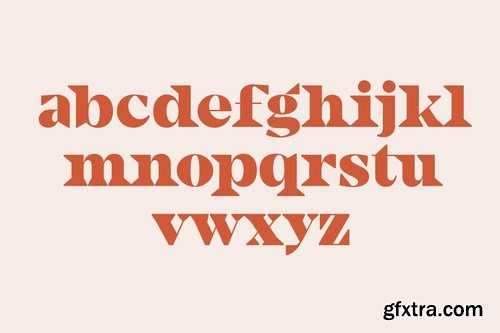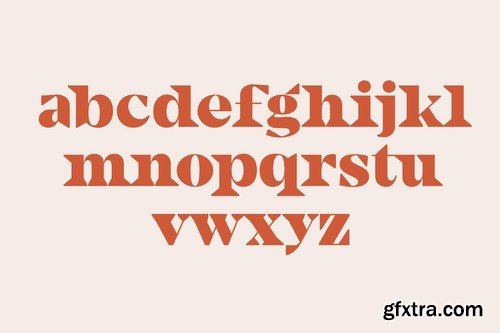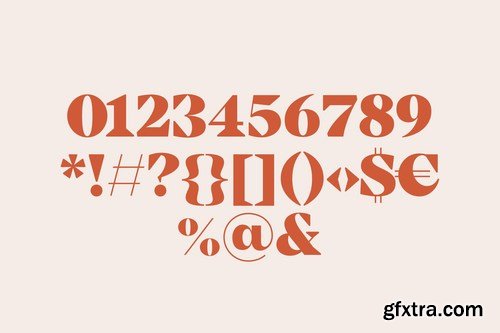
Introducing our new typeface trio, Metridat - a contemporary, Art Deco-inspired display typeface full of character, quirky ligatures, and glyphs to keep your designs fresh.
This is a display font that we recommend using in the following types of work; magazines (titles and layouts), logos and branding, invitations, quotes, blog headers, posters, and advertising. Language Support: Afrikaans, Albanian, Catalan, Danish, Dutch, English, French, German, Italian Norwegian, Portuguese, Spanish, Swedish and Zulu. What's included: Uppercase and lowercase glyphs Punctuation Numbers Multilingual support Unique ligatures glyphs